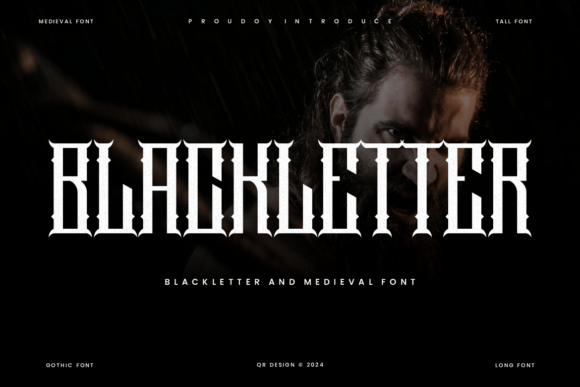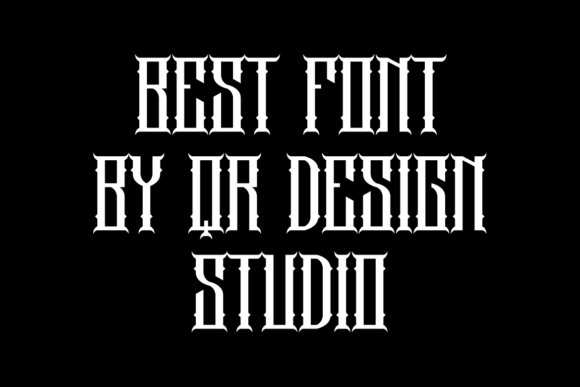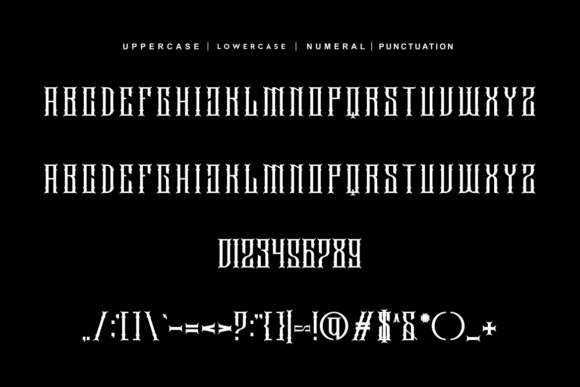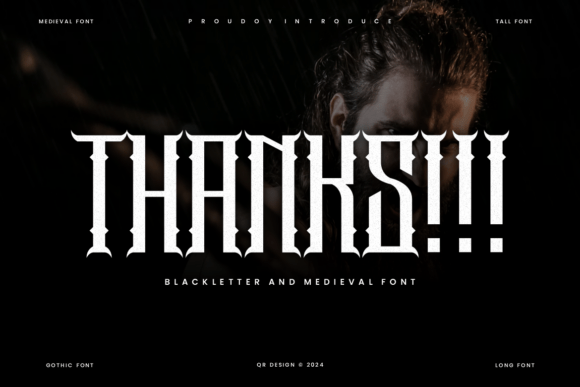
The Power of Gahonre Font: A Designer’s New Best Friend
I still remember the design project that led me to discover the amazing Gahonre font. I was working on a branding project for a craft brewery, and I needed a bold, eye-catching font that would make their labels stand out. After hours of searching, I stumbled upon Gahonre, and it was love at first sight! 💕
This bold and thick lettered blackletter font has since become a staple in my design toolkit, and I’m excited to share its awesomeness with you. In this article, we’ll dive into the world of Gahonre, exploring its features, how to use it, and some similar fonts you might enjoy.
An Honest Review of Gahonre Font
What I Love About Gahonre ✨
- 💯 Bold and attention-grabbing: Gahonre is perfect for making a statement with your designs.
- 🔍 PUA encoded: Easy access to all glyphs and swashes, making it a breeze to customize your text.
- 🎨 Versatile: Works great for various design projects, from labels and posters to logos and packaging.
While Gahonre is an amazing font, there are a few minor things to keep in mind:
- 🤔 Limited use cases for very small text: Due to its bold nature, Gahonre might not be the best choice for very small text or body copy.
- ⚠️ Some swashes may not work well with all software: Depending on the design software you’re using, some swashes or glyphs might not display correctly.
The Backstory of Gahonre Font
Gahonre was designed with the intention of creating a bold, attention-grabbing blackletter font that would stand out in any design. Inspired by traditional medieval lettering, the designer aimed to create a font that was both elegant and powerful. The result is a versatile font that works beautifully for labels, posters, logos, and more.
| Font Name | Gahonre Font |
| Author | qrdesignstd |
Q: Is Gahonre suitable for body text or small sizes?
A: Due to its bold nature, Gahonre is best used for headlines, titles, or large text. It may not be the best choice for body text or very small sizes.